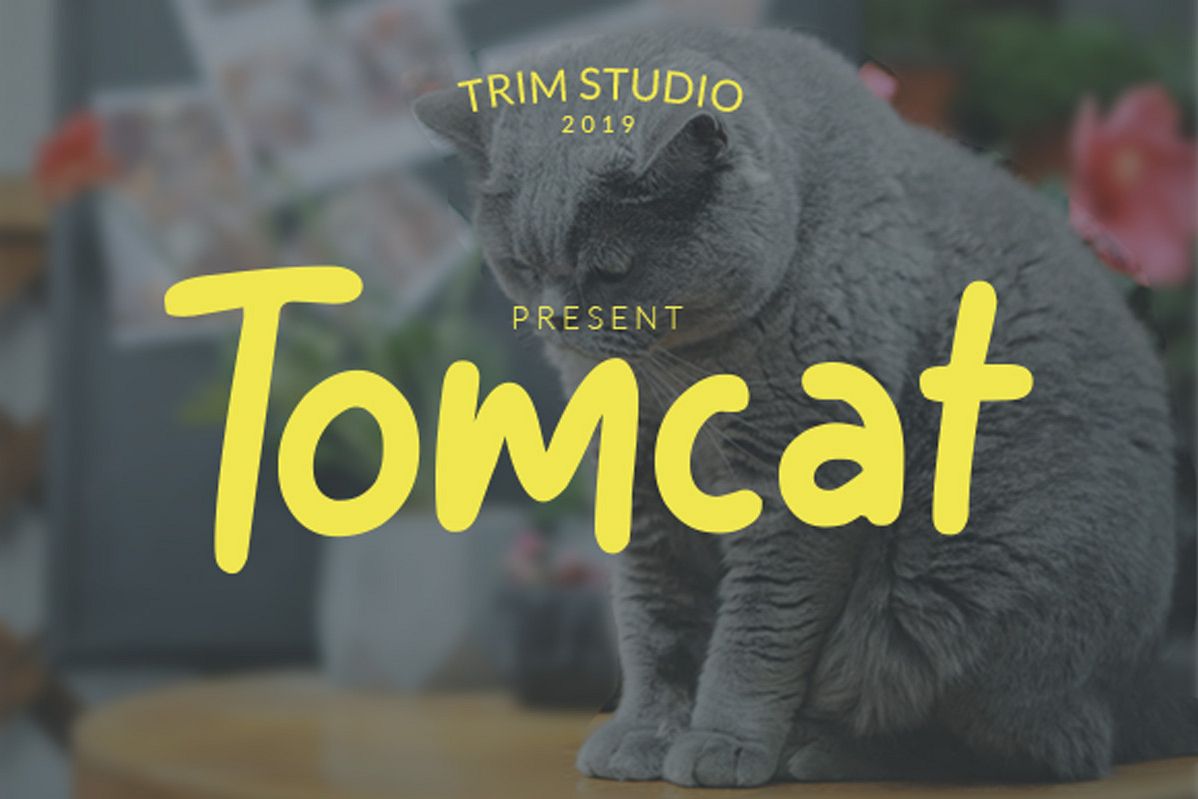
Created By Trim Studio
Tomcat - Cheerfull Day Font
The Tomcat Bold is a playful display font. It comes in a regular and bold style which will give your design a fun touch.